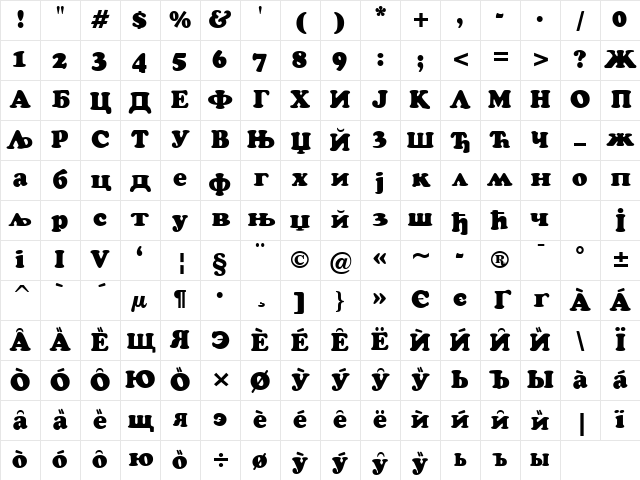
Complete Cir CooperBlack Regular glyph index. Displaying only characters natively supported by Cir CooperBlack Regular font.
Cir CooperBlack is a composed and adaptable typeface that performs quietly and consistently across a wide range of design contexts.
Pro Tip: Use Cir CooperBlack in both headline and body roles to test its range before committing to a single application.